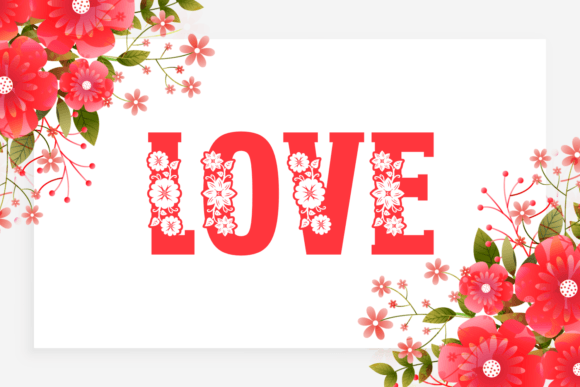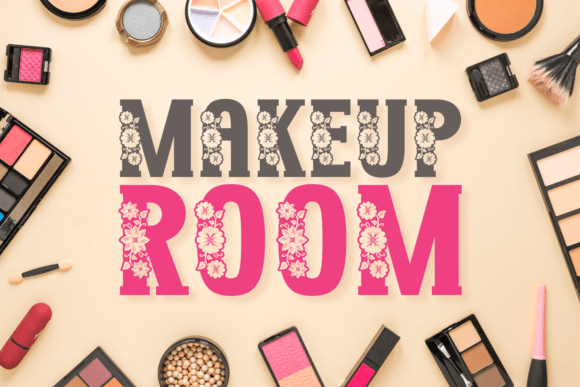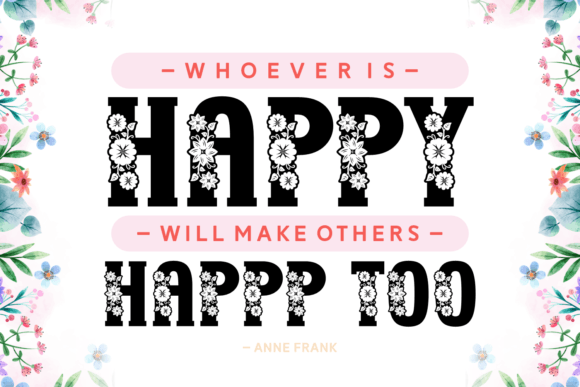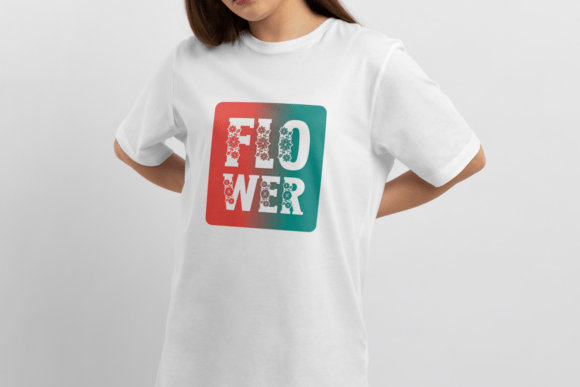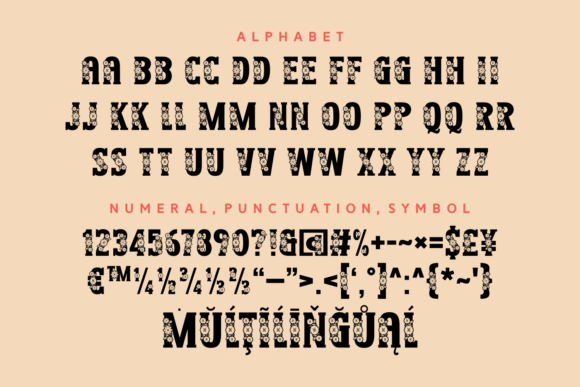
The Blossom for You Font: A Floral Masterpiece for Your Creative Projects
I still remember the time I was working on a spring-themed greeting card project, and I just couldn’t find the perfect font to match the delicate flowers and lush greenery I had designed. The client wanted something that would make their card stand out, but I was stuck. That’s when I stumbled upon the Blossom for You font, and it completely transformed my design. In this article, I’ll share my experience with this gorgeous floral-themed decorative font, its features, and how to make the most of it in your creative projects.
An Honest Review of Blossom for You Font
- ✨ Thick, elegant letters that add a touch of sophistication to any design
- ✅ Lovely flowers and delicate leaves that bring a sense of spring and renewal to your projects
- 🌼 Perfect for florist branding, spring projects, greeting cards, and wedding designs – the list goes on!
- 🎨 Great for adding a personal touch to your designs, making them more unique and eye-catching
While I absolutely love the Blossom for You font, there are a few things to keep in mind:
- 🤔 Some letters may be a bit tricky to read if you’re used to more traditional fonts, so it’s essential to test it out before committing to a design
- ⚠️ May not be the best choice for body text due to its decorative nature, but perfect for headings, titles, or accents
- Experiment with OpenType features like glyphs and stylistic alternates to add more flair to your design
The Story Behind Blossom for You Font
The Blossom for You font was created with the intention of capturing the essence of spring and the beauty of nature. The designer aimed to create a font that would be both elegant and playful, perfect for a variety of creative projects. With its lovely flowers and delicate leaves, Blossom for You is sure to bring a touch of whimsy to your designs.
Q: What type of projects is Blossom for You best suited for?
A: Blossom for You is perfect for florist branding, spring projects, greeting cards, wedding designs, and many more creative endeavors.